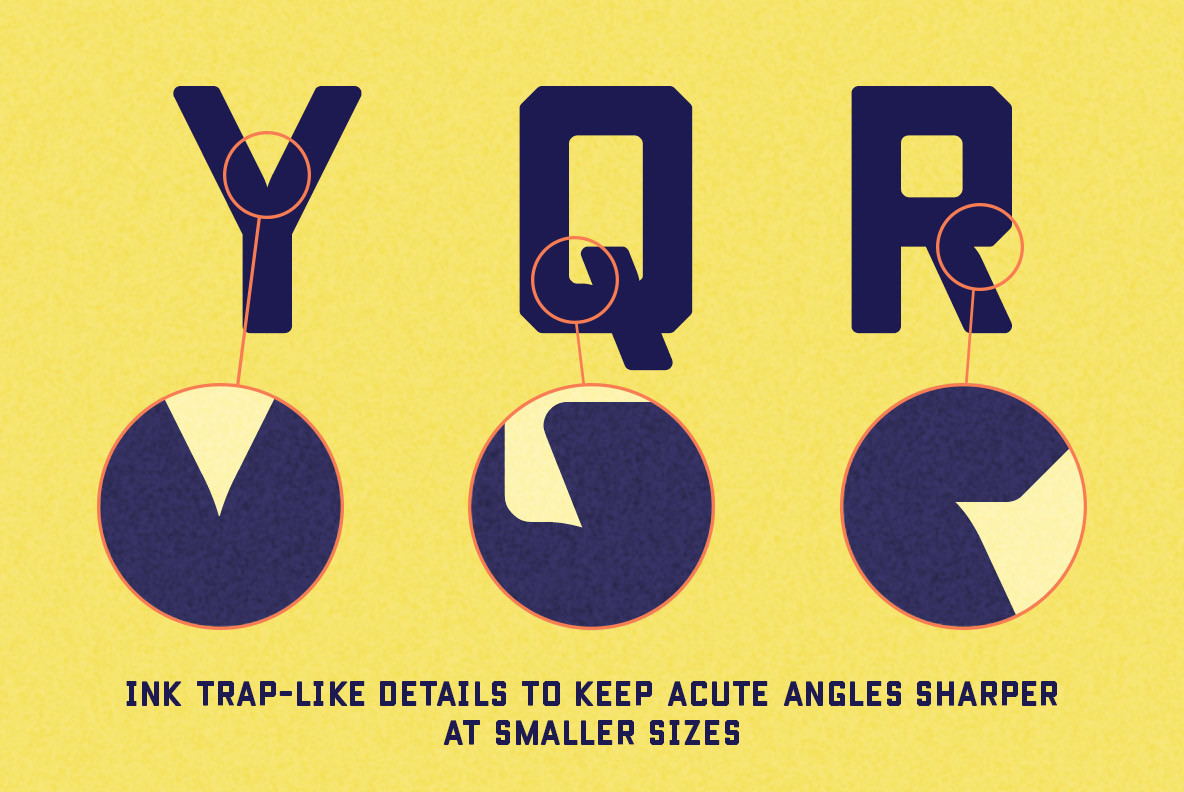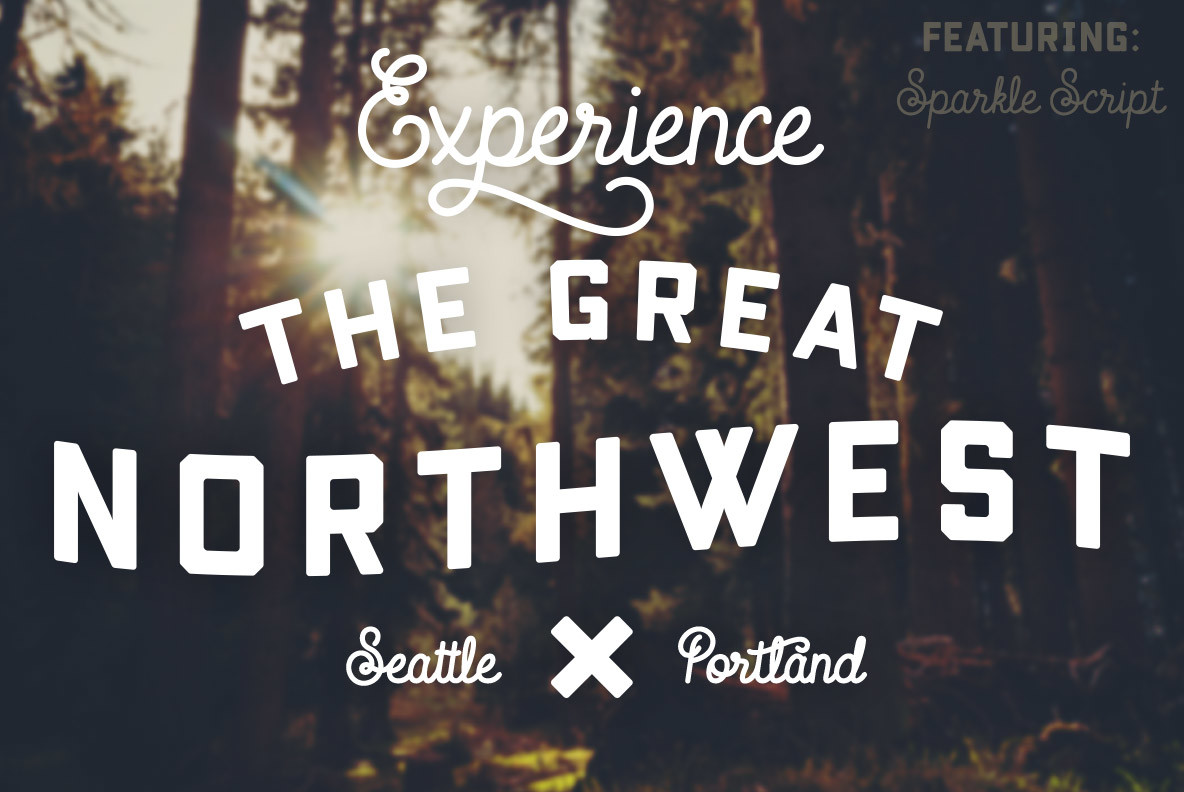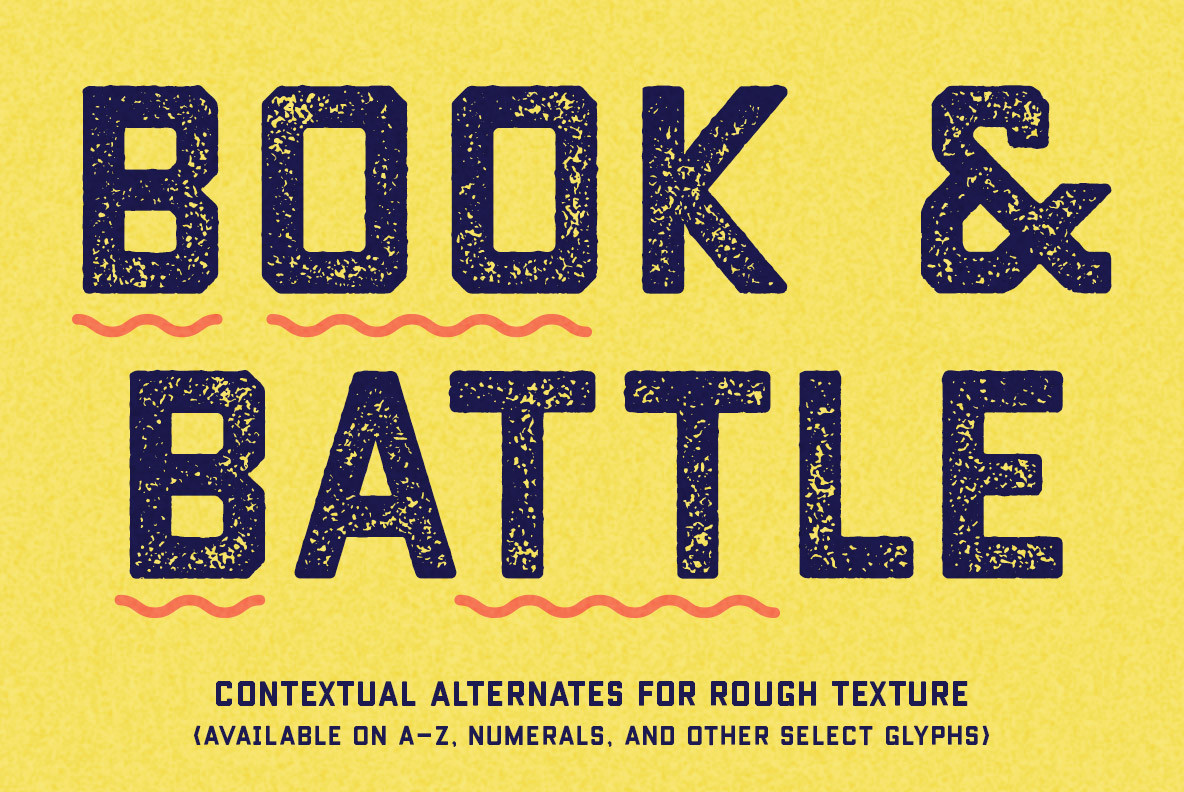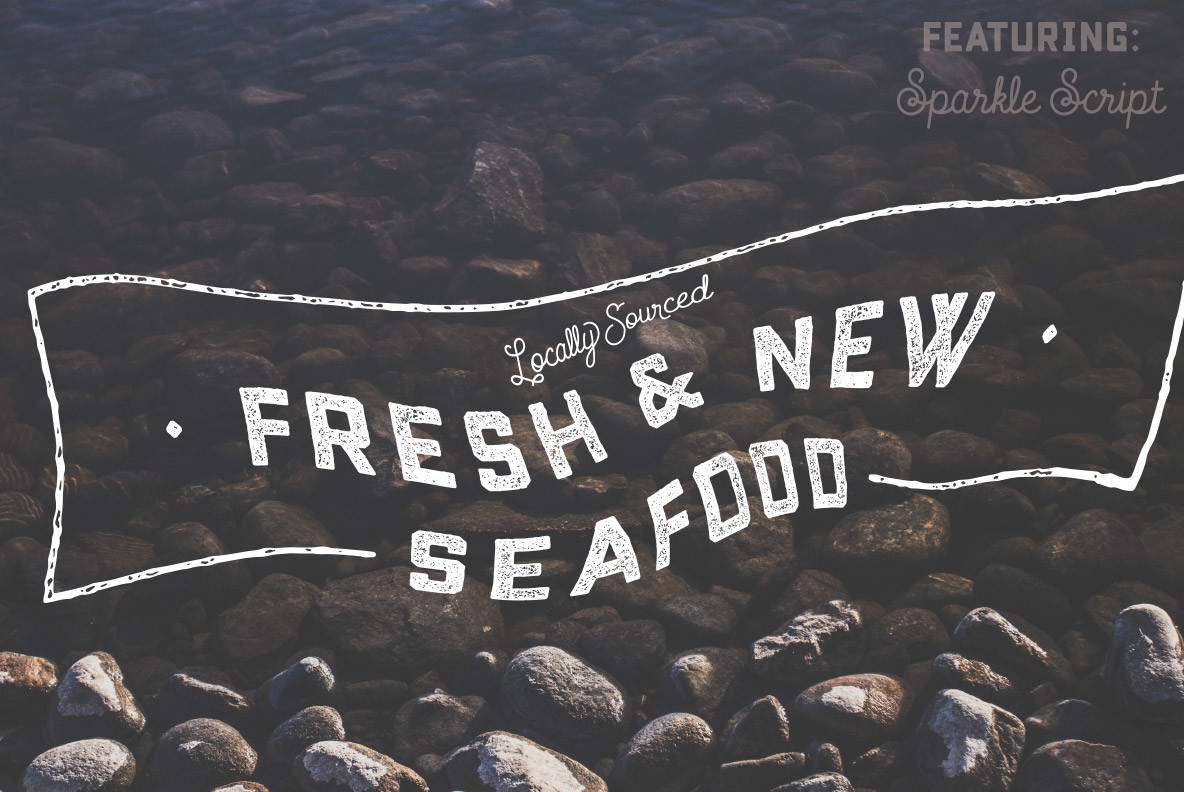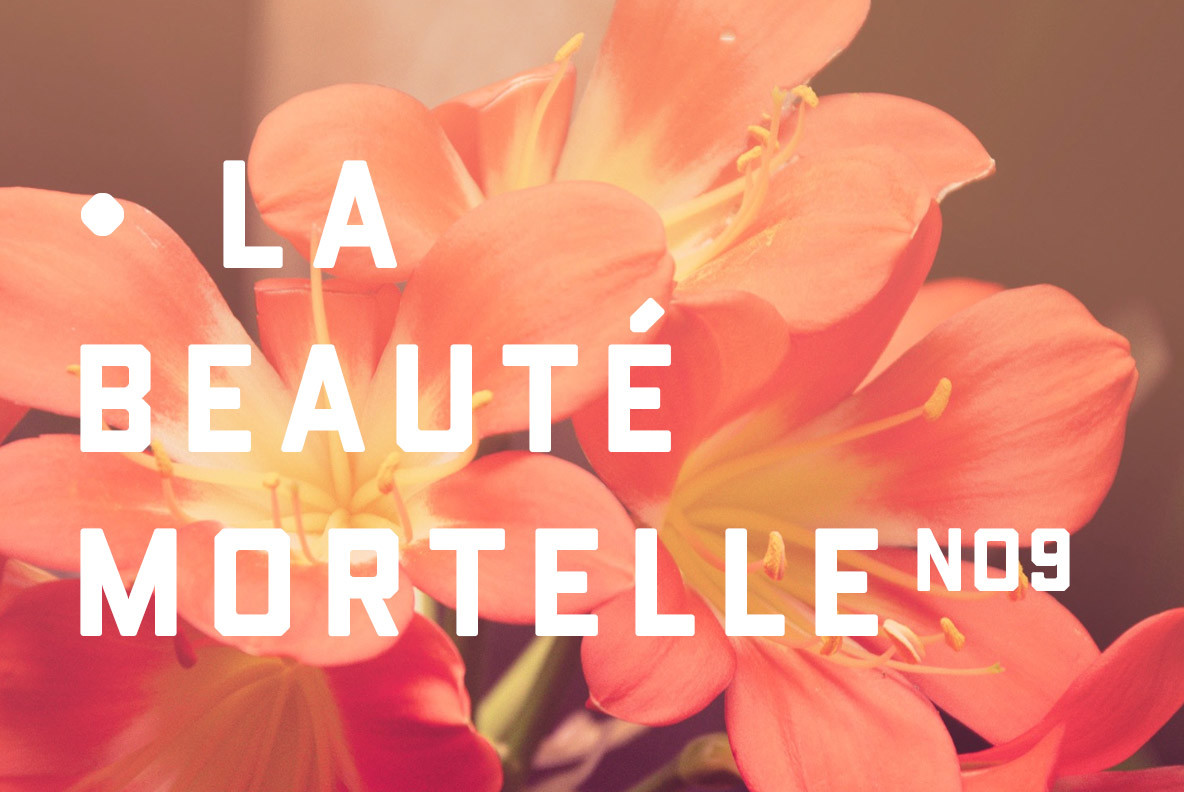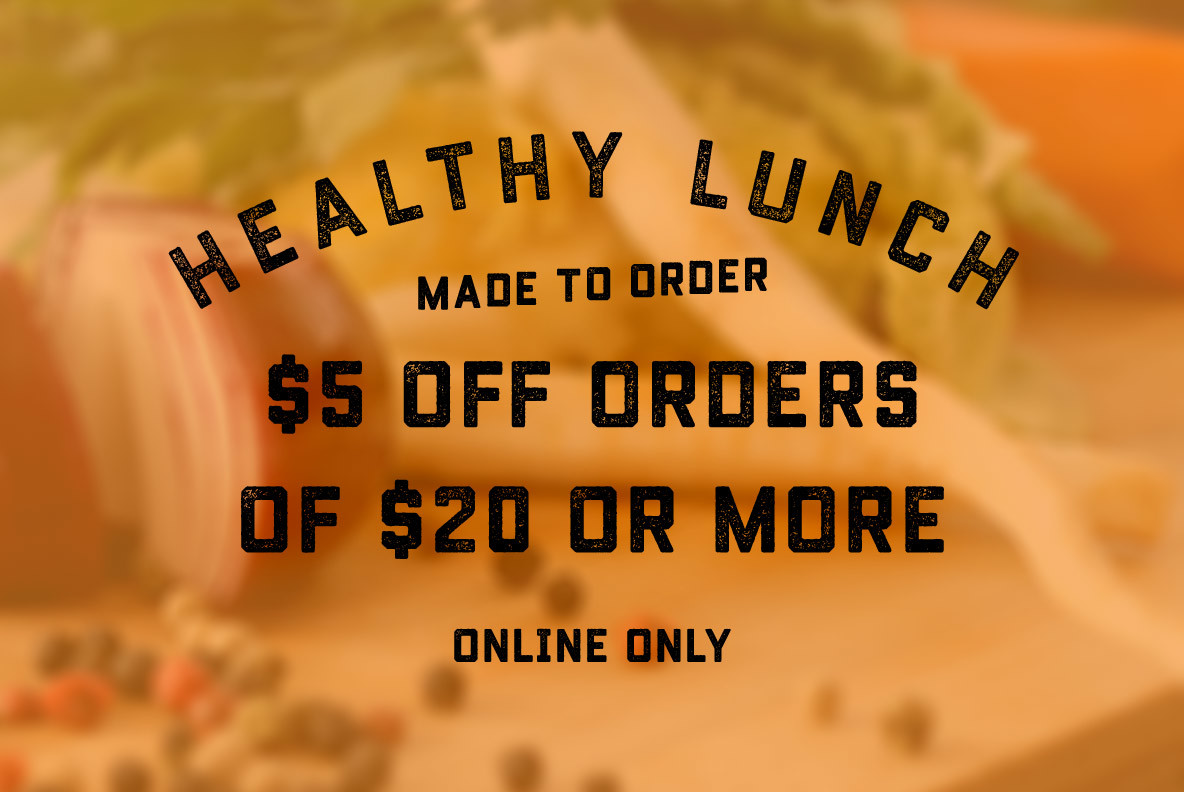
Conifer Font
Conifer Rough
Conifer Solid
Conifer is a blocky geometric sans serif font that adheres to strict grid rules in order to define its corner angles. Its seemingly rigid form is tempered by the soft, rounded corners, and fine notched details present at acute angles in the glyphs. Available in a clean solid and a varied, textured rough. The result is a rugged, retro, typeface that is at home in fashion lookbooks and wood-carved park signage alike.